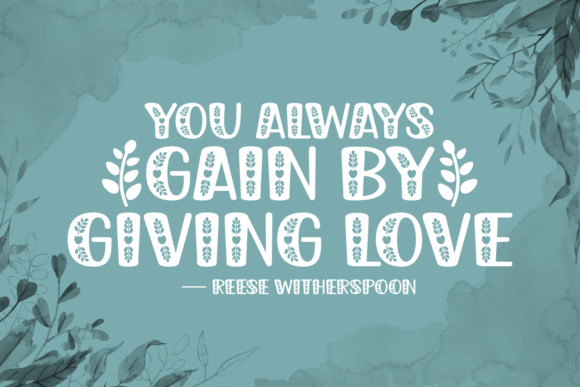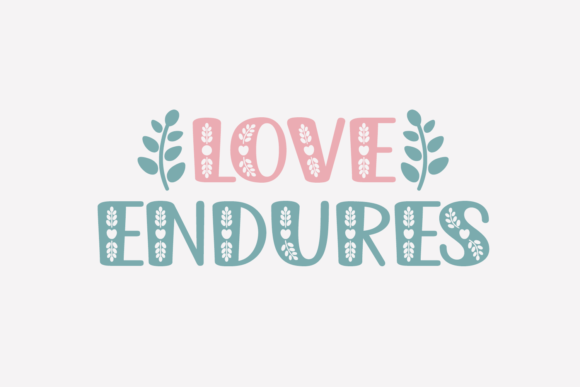
Gain by Giving Font: Add a Touch of Whimsy to Your Designs
Are you a designer or crafter looking for a unique and charming font to add a personal touch to your projects? Look no further than the Gain by Giving font, a delightful display font with a beautiful floral theme. In this article, we’ll take a closer look at this lovely font and explore its features, uses, and benefits.
What is Gain by Giving Font?
Gain by Giving is a cute display font designed with a floral theme, perfect for adding a touch of whimsy and charm to your designs. The font features beautiful, intricate floral patterns and delicate lines, making it ideal for projects that require a feminine and elegant touch.
Key Features of Gain by Giving Font
- Unique Floral Theme: The Gain by Giving font boasts a stunning floral theme, complete with intricate patterns and delicate lines.
- Cute and Charming: This font is perfect for designers and crafters who want to add a touch of whimsy and charm to their projects.
- Display Font: Gain by Giving is a display font, making it perfect for headlines, titles, and other design elements that require a bold and eye-catching font.
- Elegant and Feminine: The font’s elegant and feminine design makes it perfect for projects that require a sophisticated and delicate touch.
Uses of Gain by Giving Font
So, what can you use the Gain by Giving font for? The possibilities are endless! Here are a few ideas to get you started:
- Wedding Invitations: Add a touch of elegance and whimsy to your wedding invitations with this beautiful font.
- Party Decorations: Use Gain by Giving to create adorable party decorations, such as banners, garlands, and more.
- Branding and Packaging: This font is perfect for branding and packaging projects that require a feminine and elegant touch.
- Stationery and Cards: Add a personal touch to your stationery and cards with this charming font.
Benefits of Using Gain by Giving Font
So, why should you choose the Gain by Giving font for your next project? Here are just a few benefits:
- Unique and Eye-Catching: This font is sure to grab attention and add a touch of personality to your designs.
- Easy to Read: Despite its intricate design, Gain by Giving is easy to read, making it perfect for use in a variety of projects.
- Versatile: This font can be used in a wide range of projects, from wedding invitations to party decorations.
- High-Quality: Gain by Giving is a high-quality font, ensuring that your designs look professional and polished.
Tips for Using Gain by Giving Font
Here are a few tips for using the Gain by Giving font in your designs:
- Pair with Other Fonts: Experiment with pairing Gain by Giving with other fonts to create a unique and eye-catching design.
- Use in Moderation: While this font is beautiful, it can be a bit ornate. Use it in moderation to avoid overwhelming your design.
- Experiment with Colors: Try out different colors and color combinations to find the perfect look for your design.
In conclusion, the Gain by Giving font is a beautiful and charming display font with a floral theme. Its unique design, versatility, and high-quality make it perfect for a wide range of design projects, from wedding invitations to party decorations. Whether you’re a designer or crafter, this font is sure to add a touch of whimsy and elegance to your work. So why not give it a try and see the difference it can make?